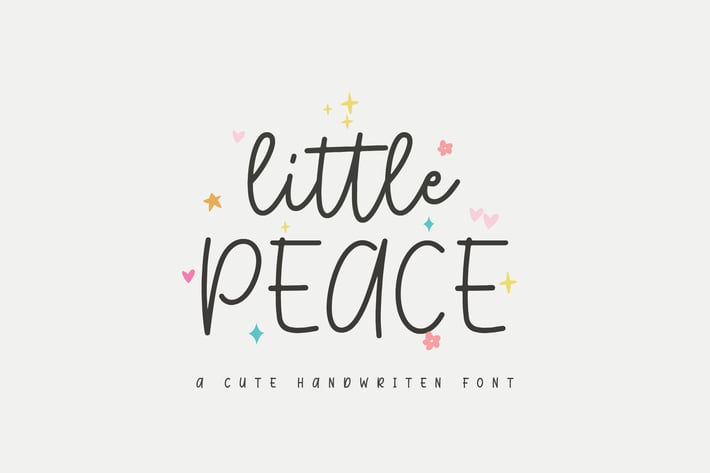
Little Peace - Cute Handwritten Font
Little Peace Font is a cute and playful handwritten script font designed to bring a touch of warmth and personality to your creative projects. With its unique, casual strokes and friendly vibe, this is perfect for logos, invitations, branding, social media posts, and more.
Add a delightful handwritten touch to your designs with Little Peace Font!